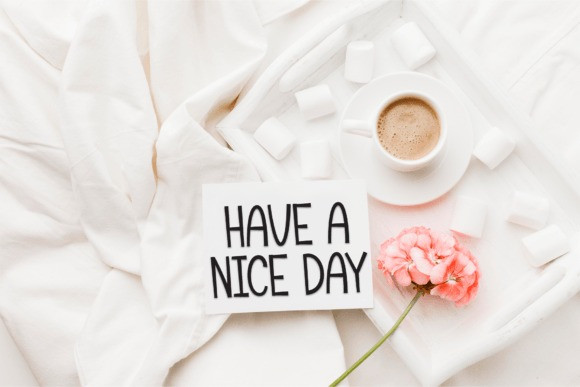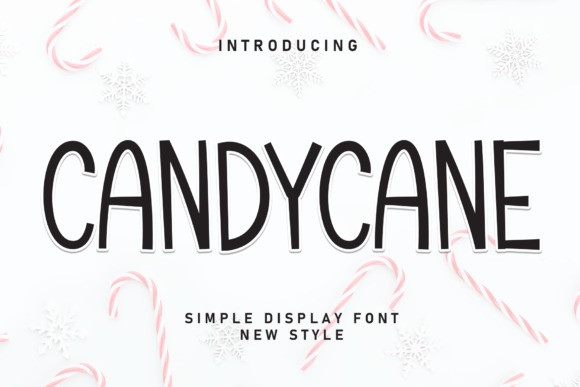
Candycane Playful Font
Candycane Playful Font is a flowing handwritten font, described by an elegant touch, perfect for your favorite projects. Fall in love with its incredibly distinct and timeless style and use it to create spectacular designs!